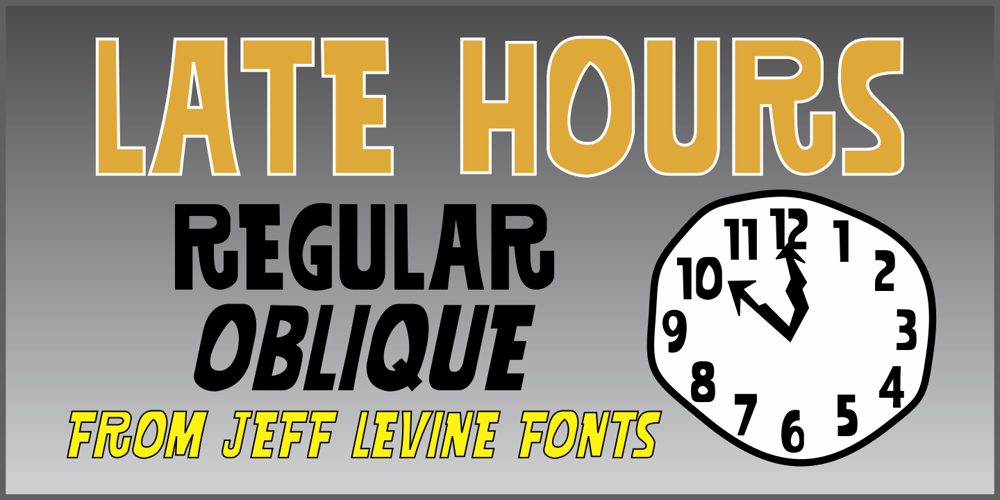
Late Hours JNL Font Family was designed by Jeff Levine and published by Jeff Levine. Late Hours JNL contains 2 styles and family package options. The free form hand lettered titles for the 1961 film “The Children’s Hour” inspired the digital typeface Late Hours JNL, which is available in both regular and oblique versions.